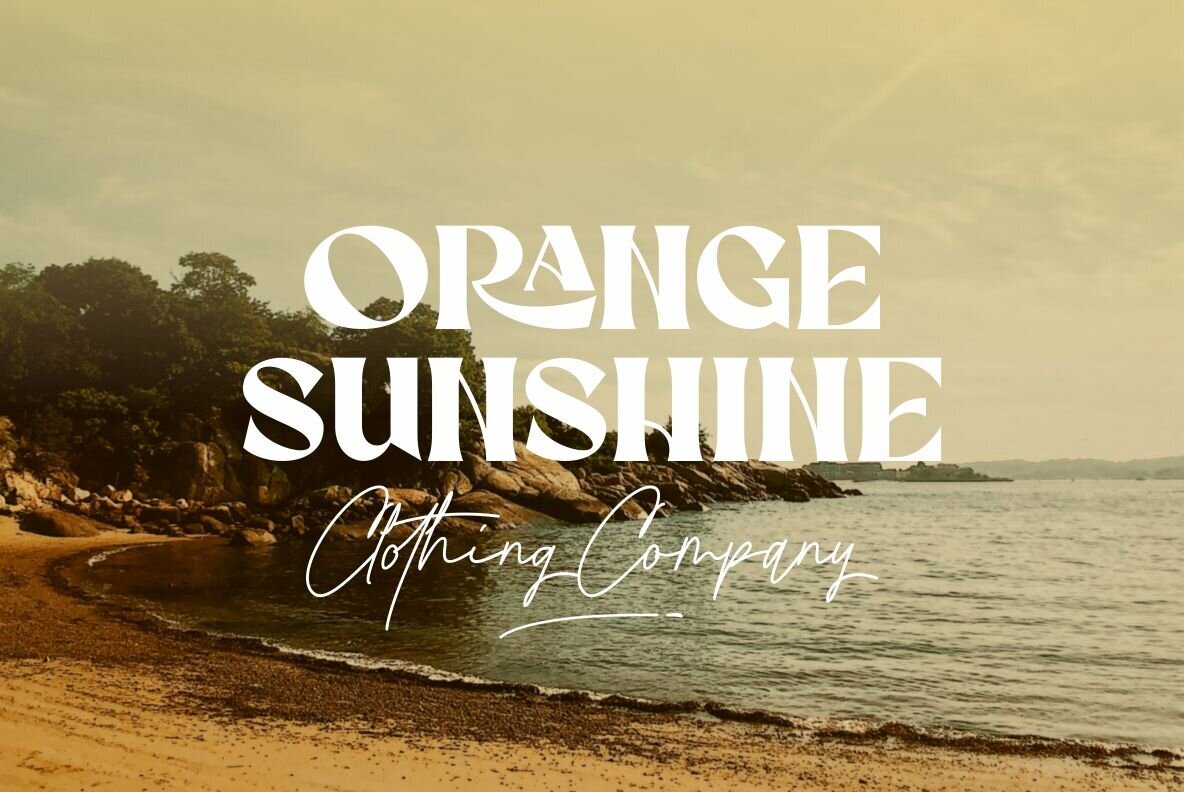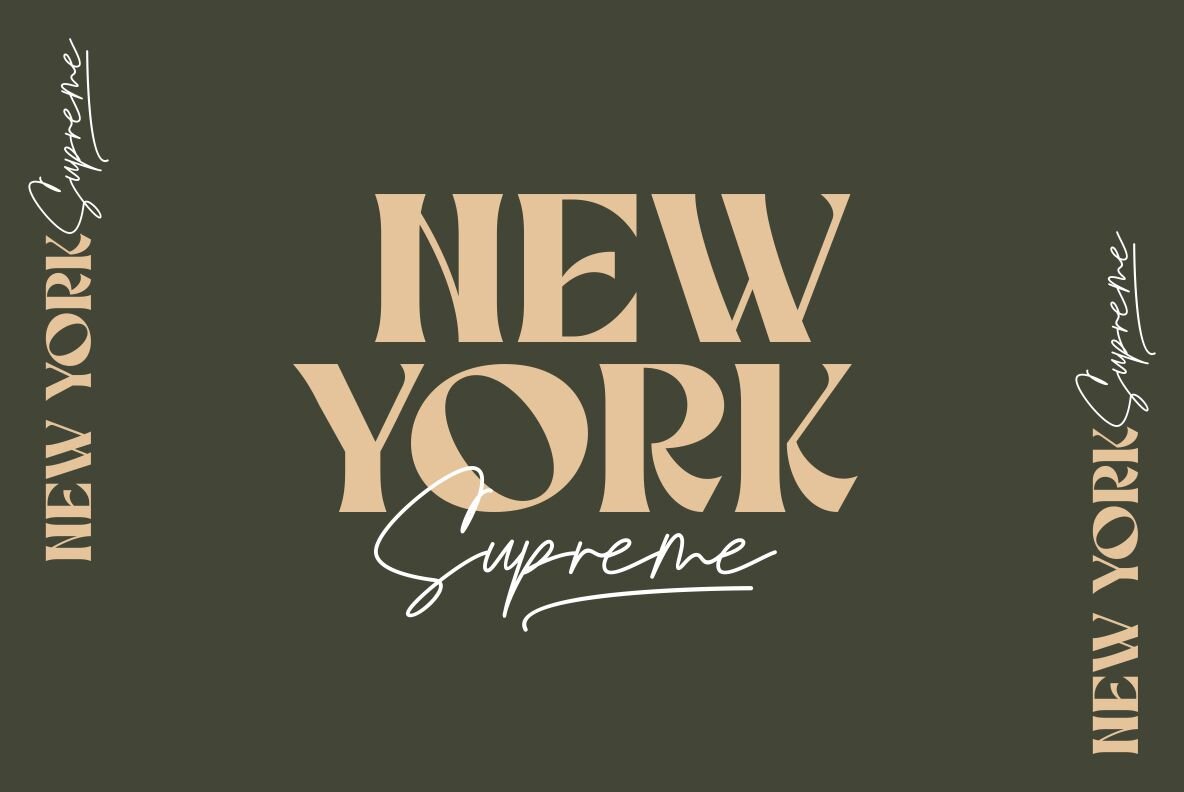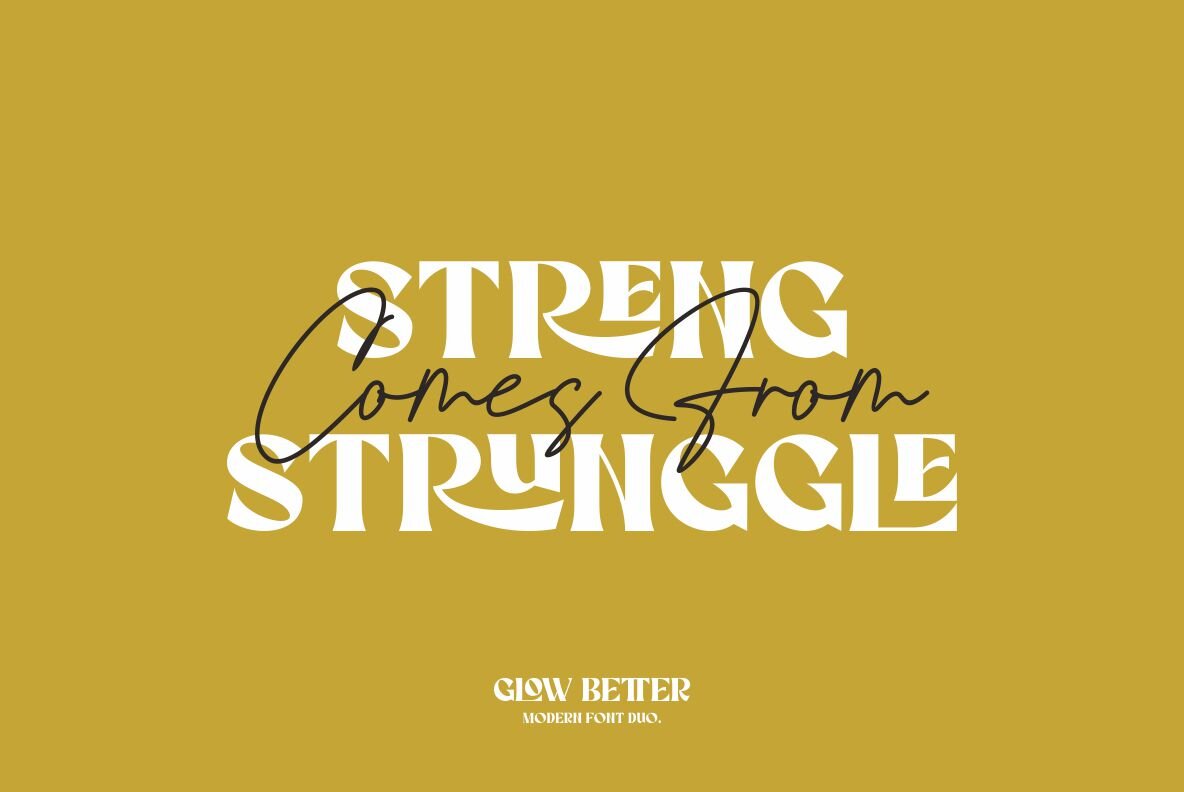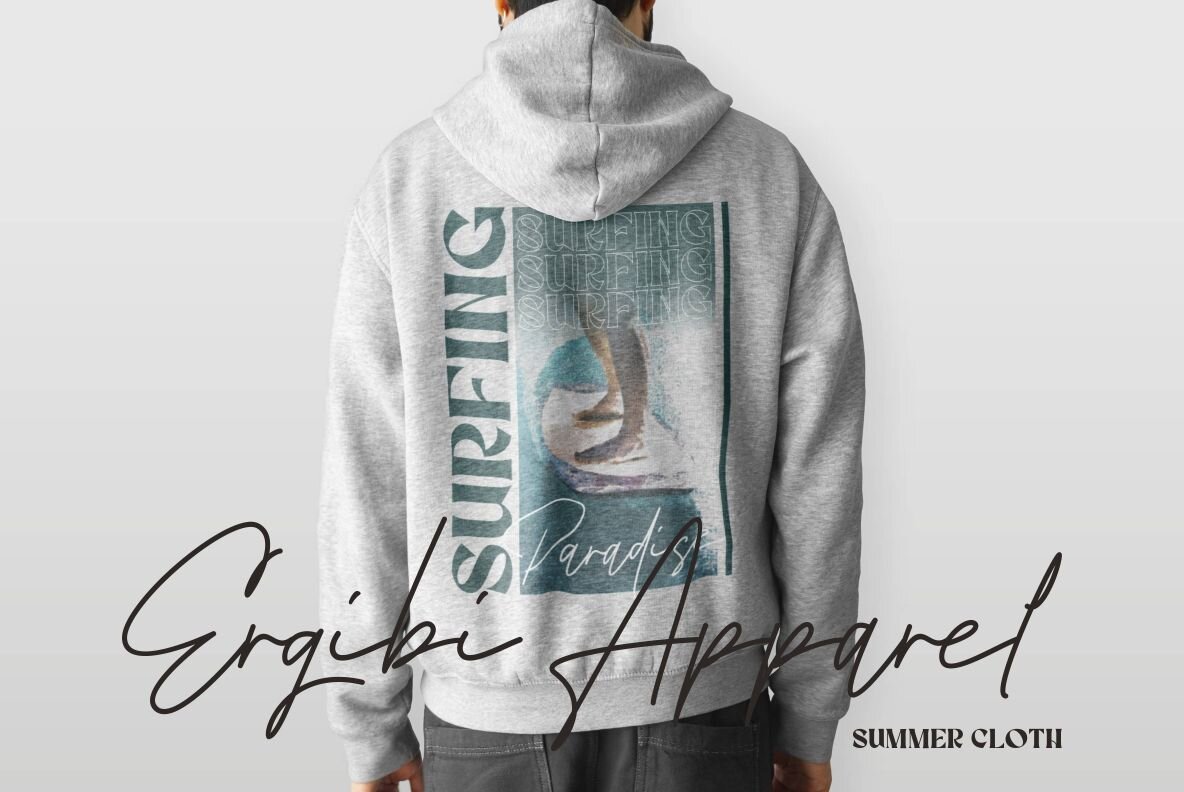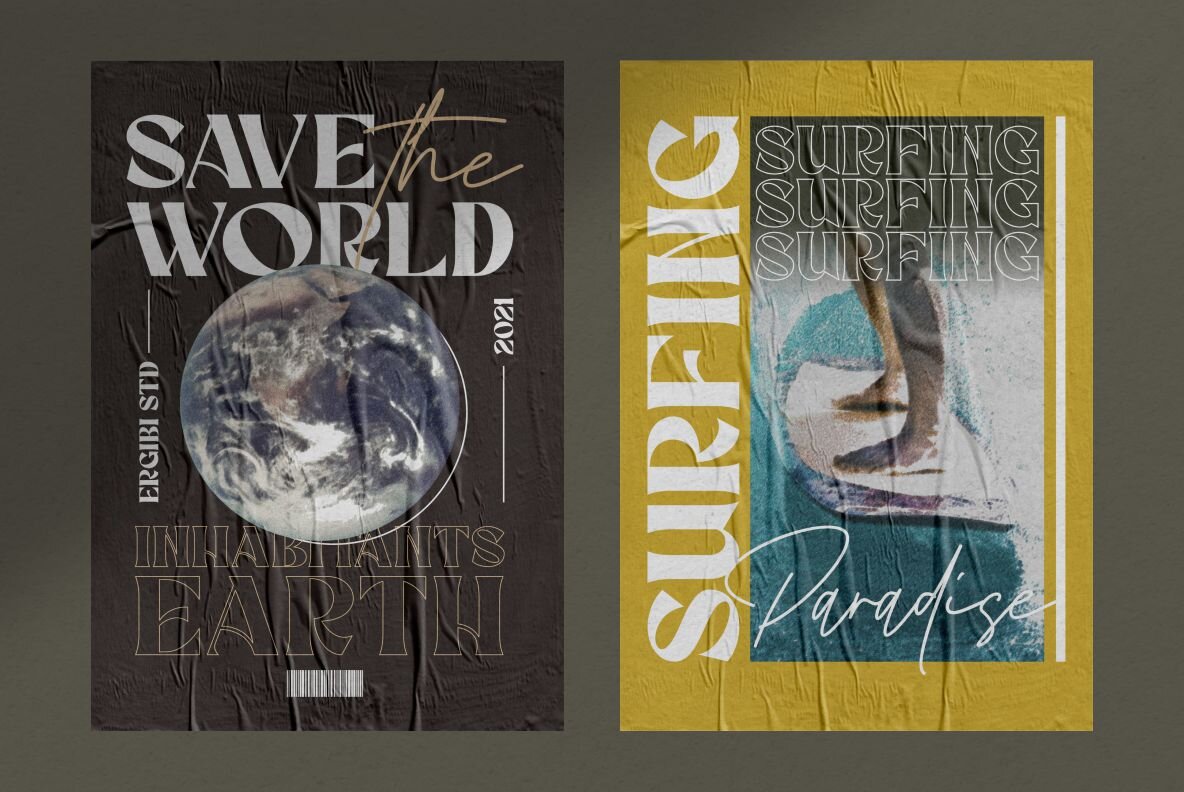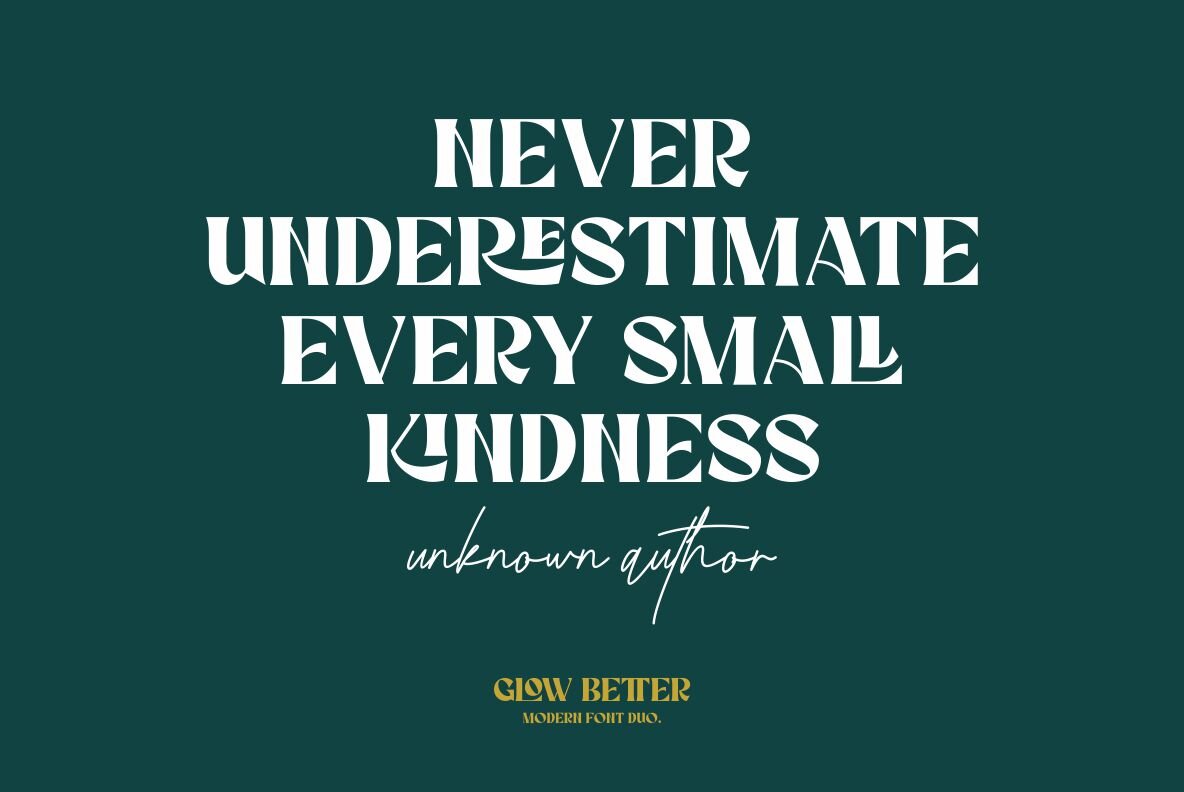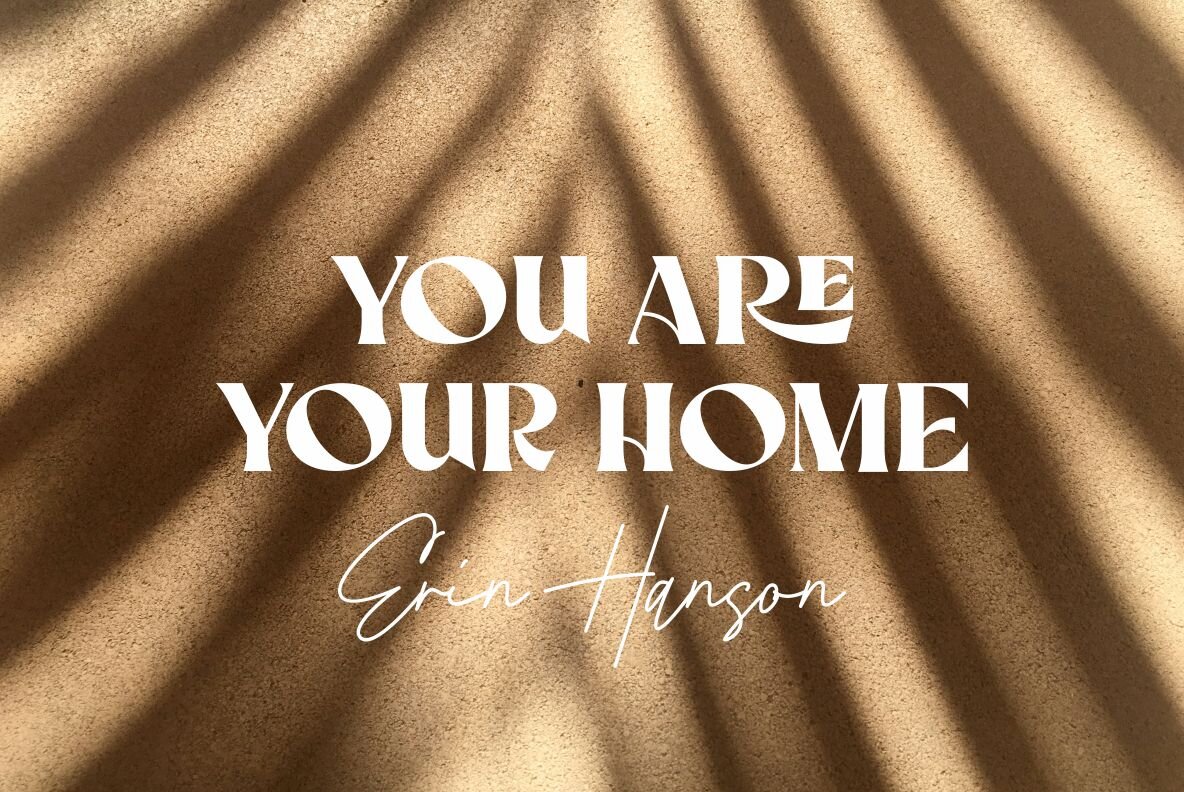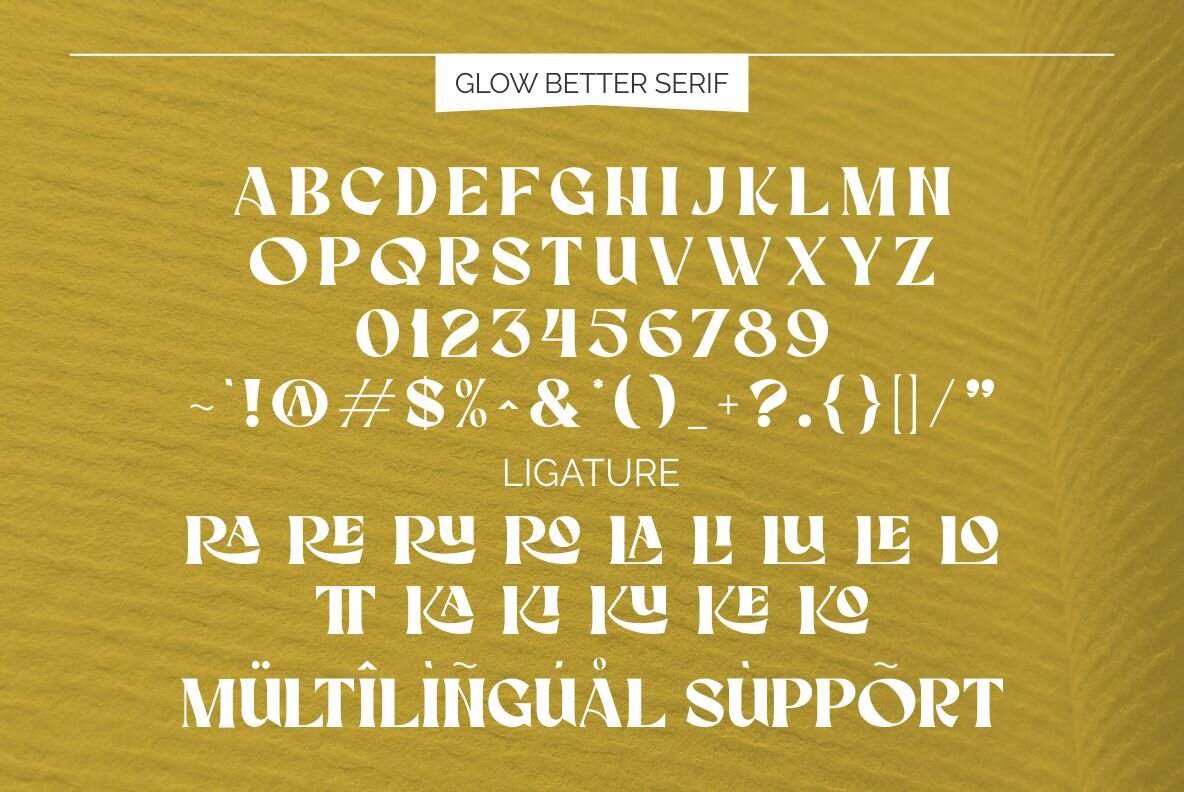
Glow Better Font
Glow Better Script
Glow Better Serif
Glow Better by Ergibi Studio presents a sophisticated fusion of serif and script fonts, carefully crafted to embody premium quality and a sense of luxury. The serif typeface draws inspiration from iconic logos, offering distinctive ligatures that elevate it beyond conventional serif fonts. Ideal for headlines, weddings, social media, and branding, its versatility extends to logos, posters, packaging, apparel, and more. This typeface promises to enhance any project, whether it's for a stylish coffee shop or a chic wedding invitation, delivering an elegant statement.Glow Better: A Luxurious Modern Duo Typeface